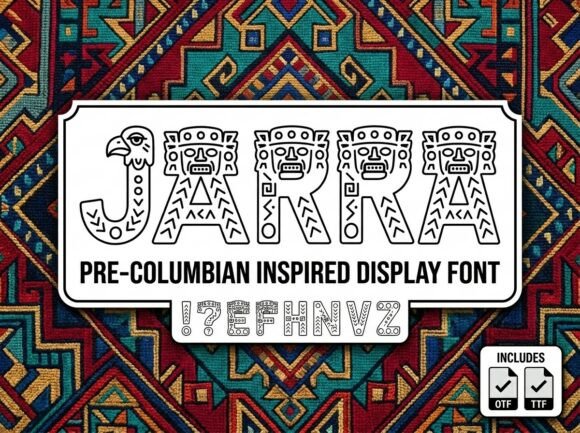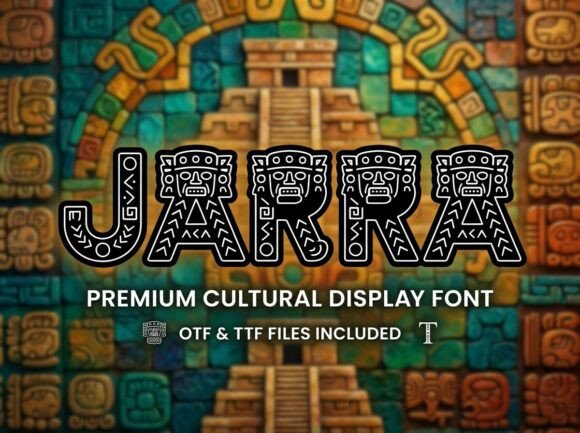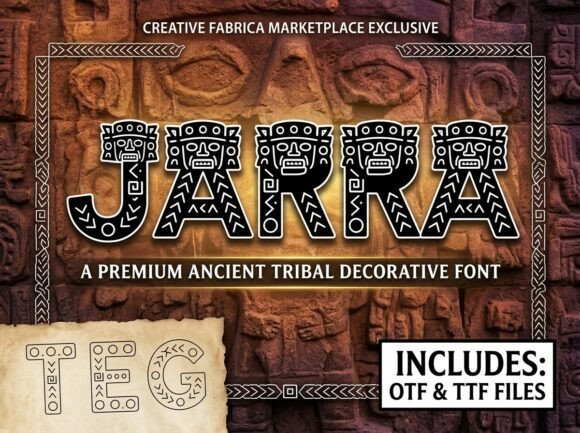
Introduction to Jarra Font
Uncover the secrets of the past with Jarra, a monumental display typeface that captures an “archeological-and-ancestral” soul.
This font features bold letterforms integrated with intricate tribal iconography, including stylized deity masks, geometric zig-zags, and symbolic petroglyphs With its rhythmic indigenous patterns and weathered stone aesthetic, Jarra is the premier choice for independent historical museum branding, ethnic craft logos, world music festival posters, and high-impact “ancient-tribal-wisdom” social media headers.
Key Features of Jarra Font
Why Choose Jarra Font?